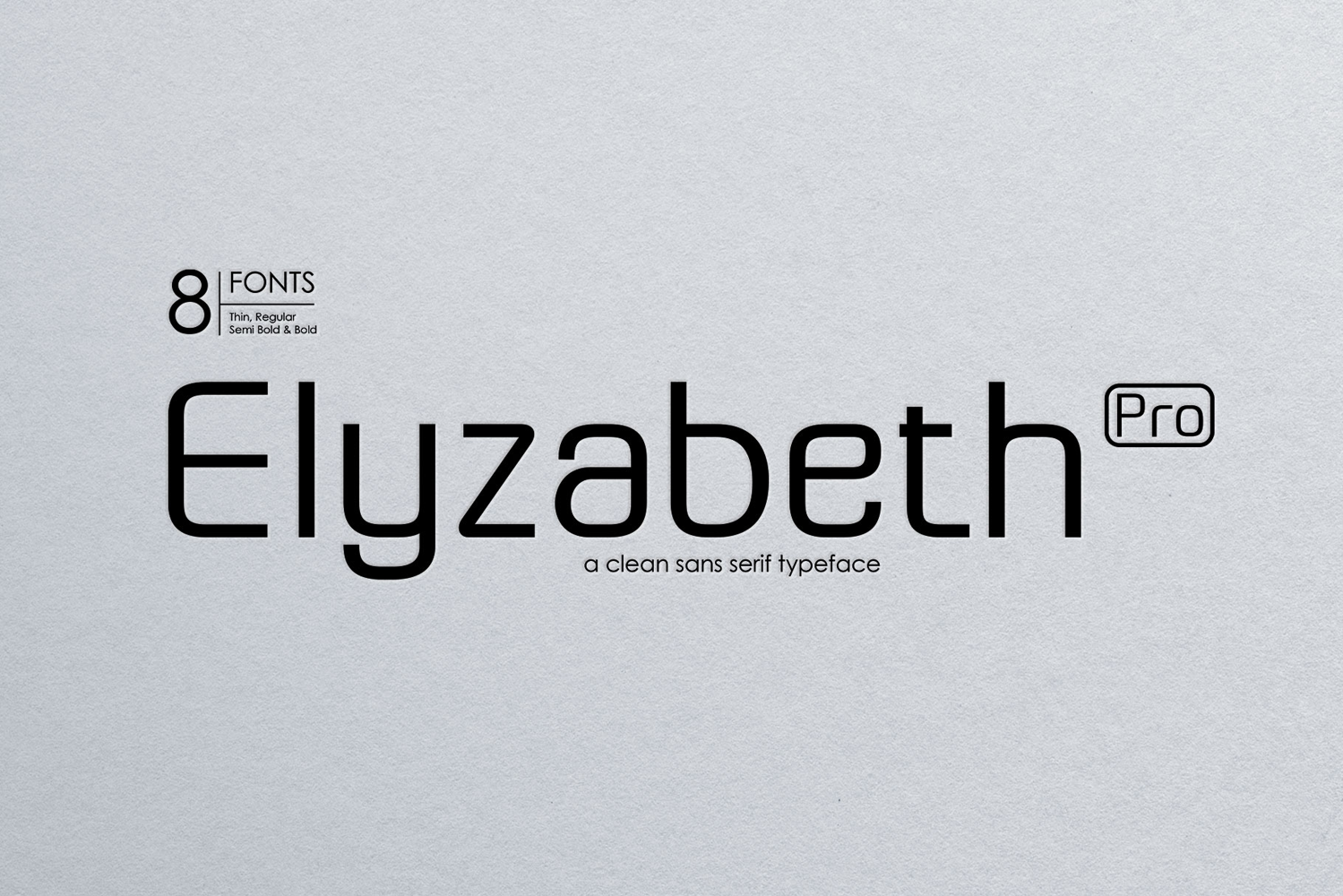
Elyzabeth Pro
Elyzabeth Pro is a very elegant and practical sans serif font family and precise in its creation. clean fonts that stand upright elegantly that are soft and familiar and easy to read, Not boring to the reader.
This type of font is great to use for very large writing purposes, ranging from notes on daily activities, magazines, newspapers, logos, posters, product compositions, product descriptions to be sold and indications of any product composition that requires writing shadows.